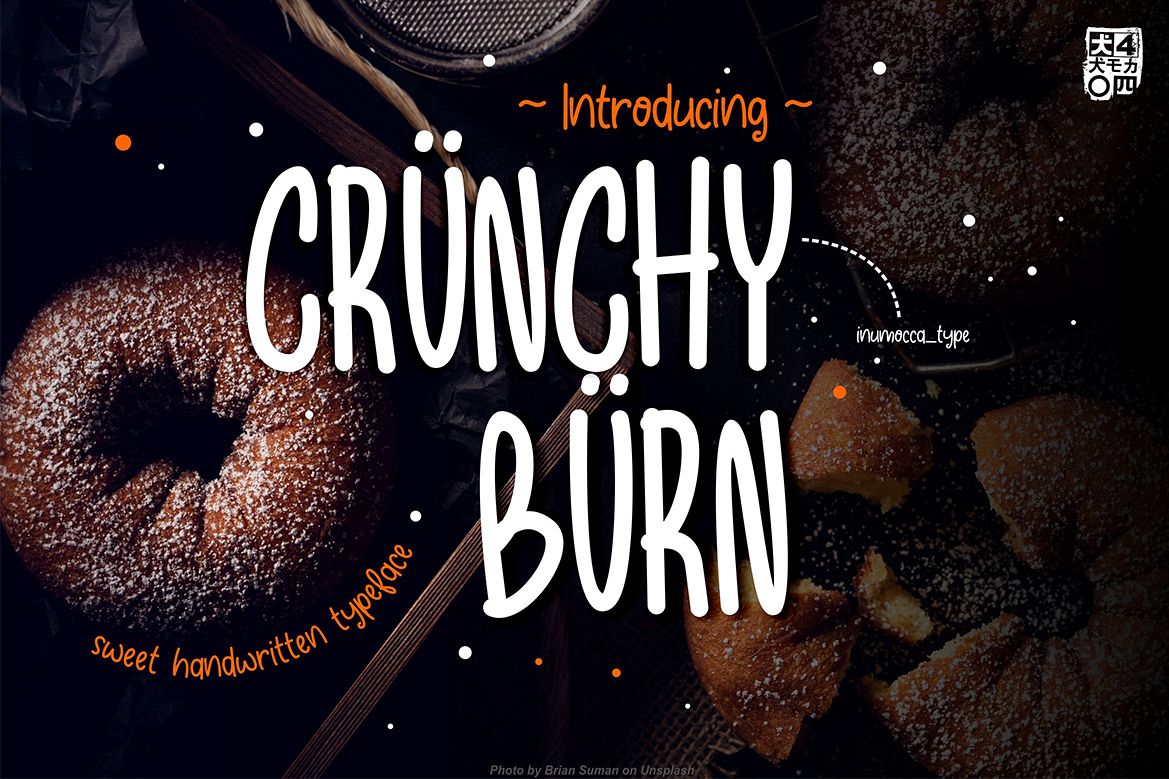
Crunchy Burn
Crunchy Burn ,A handmade handwritten typeface with unique glyphs. Crunchy Burn playfull will look so good on your poster, Blog, Website, tshirt and any other fun projects you are working on.
• Unique glyphs
• Multilingual Characters
• UPPERCASE
• Numeric
• Symbol
• Punctuation Character